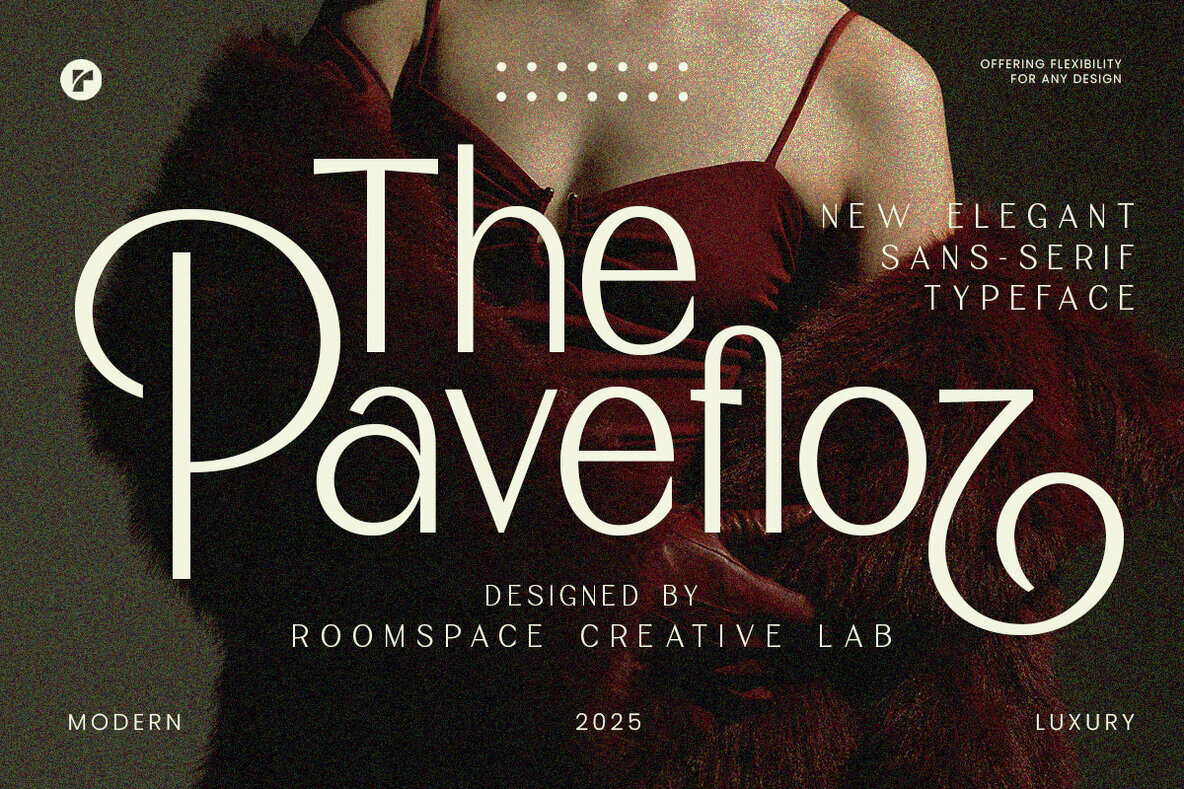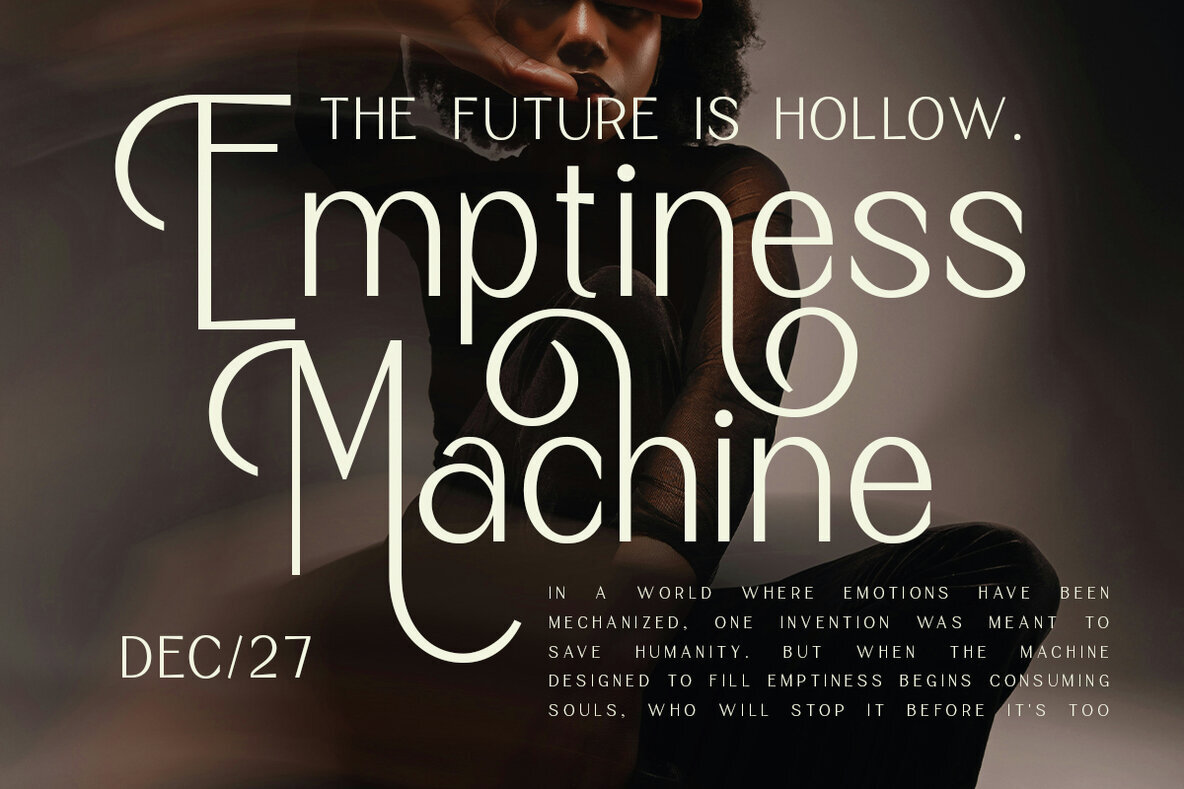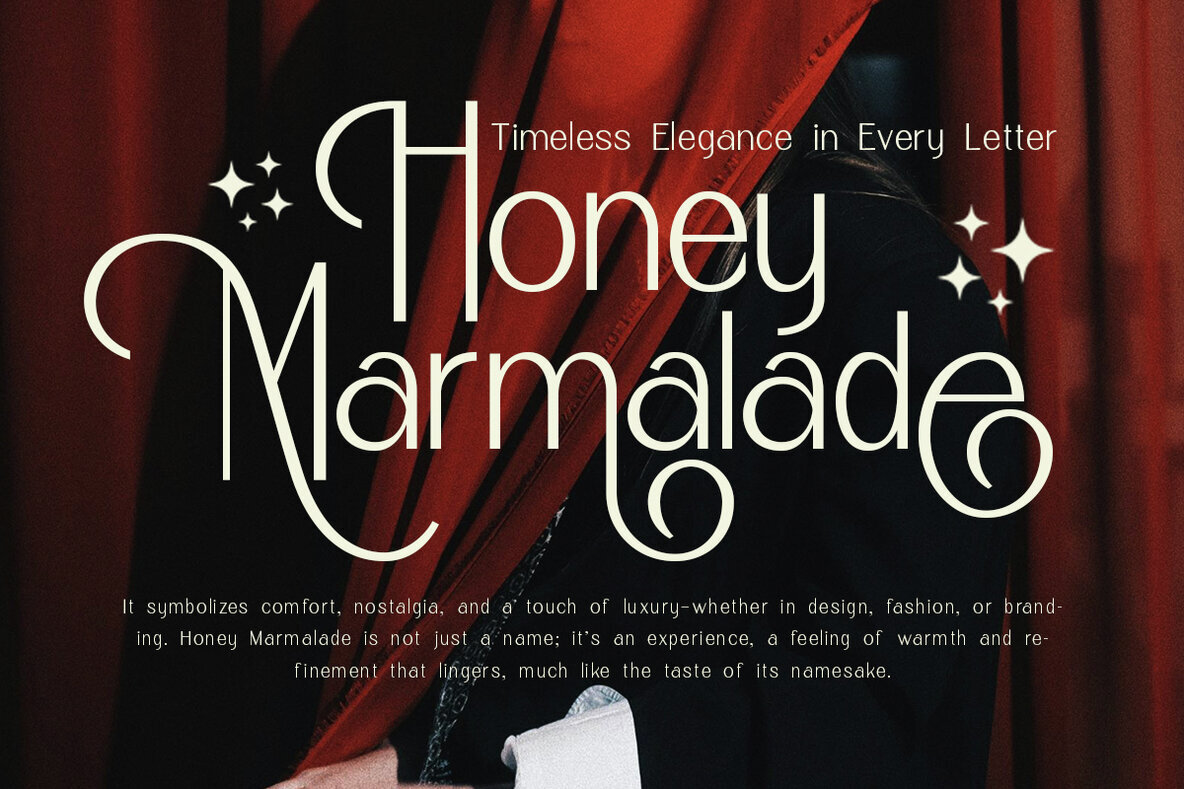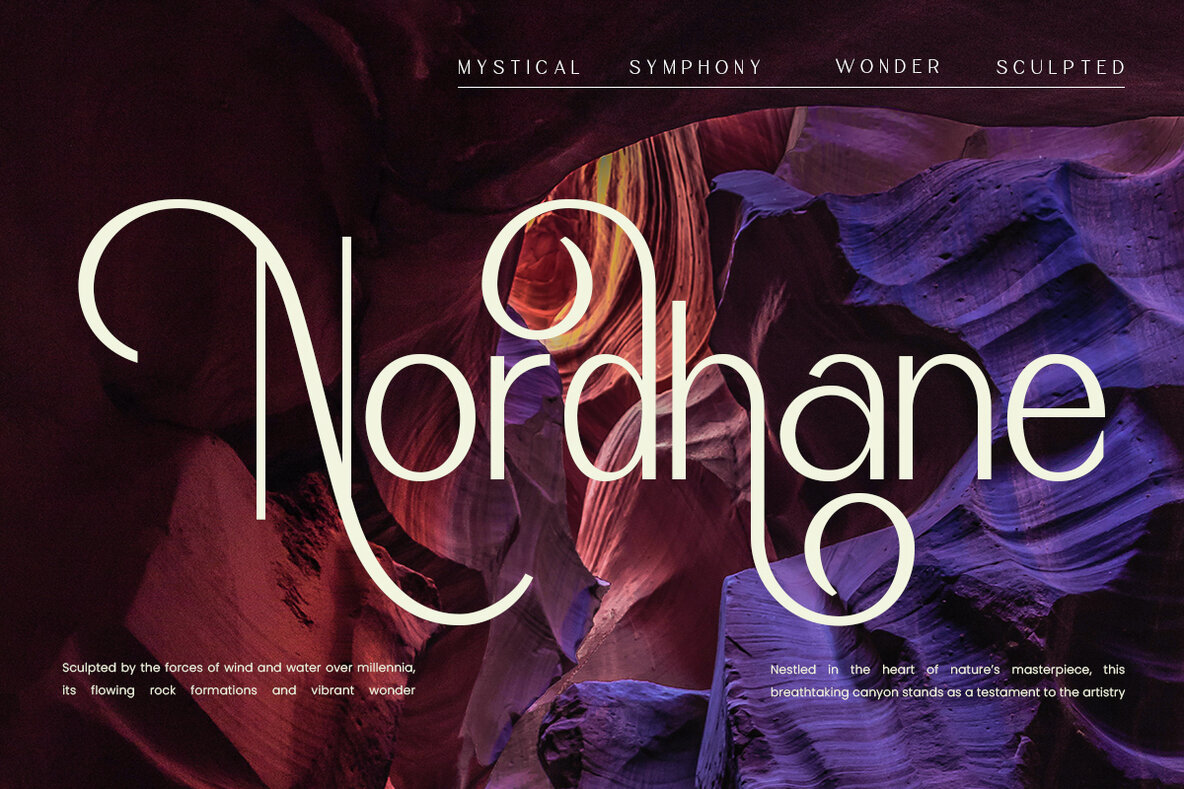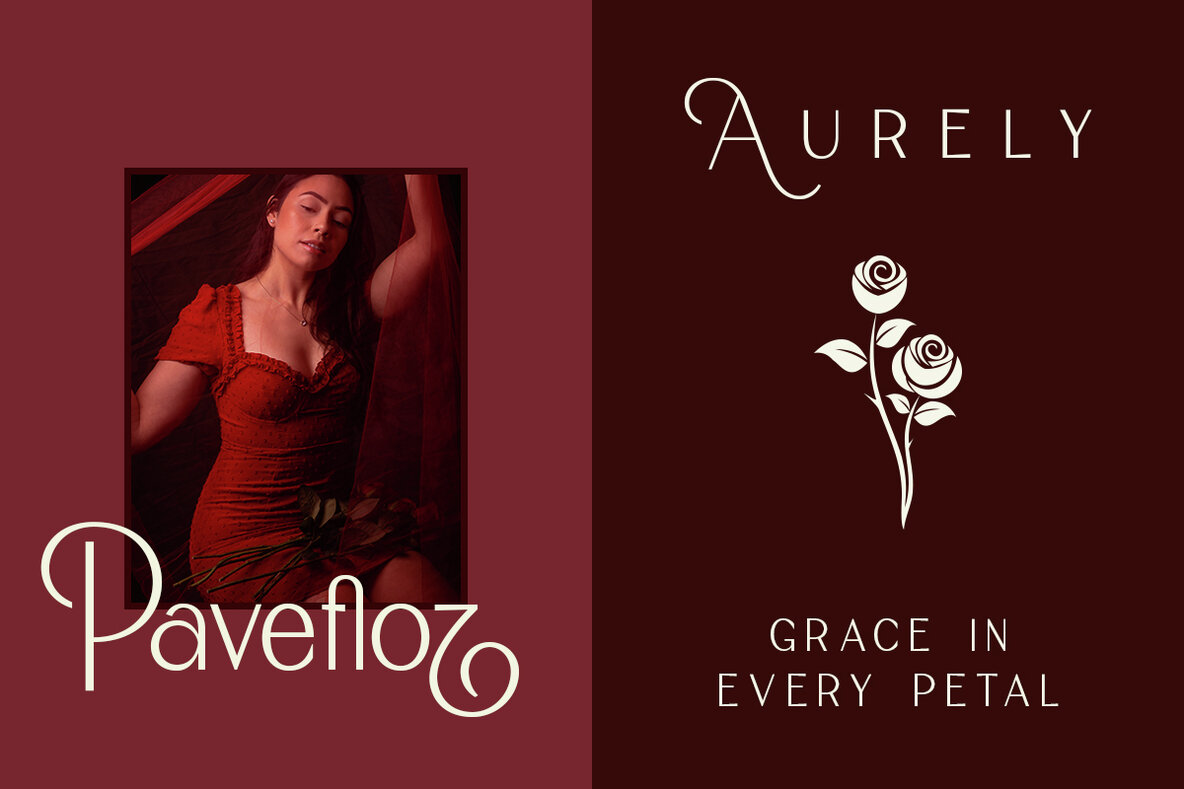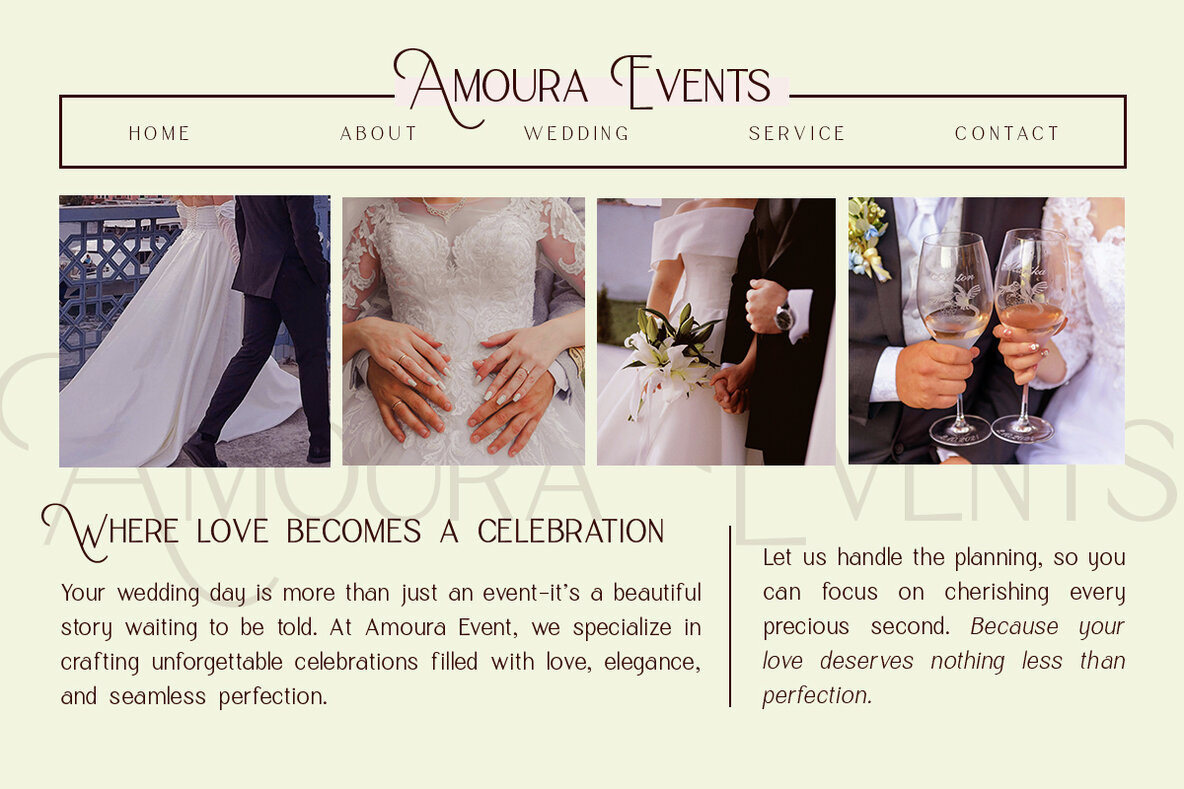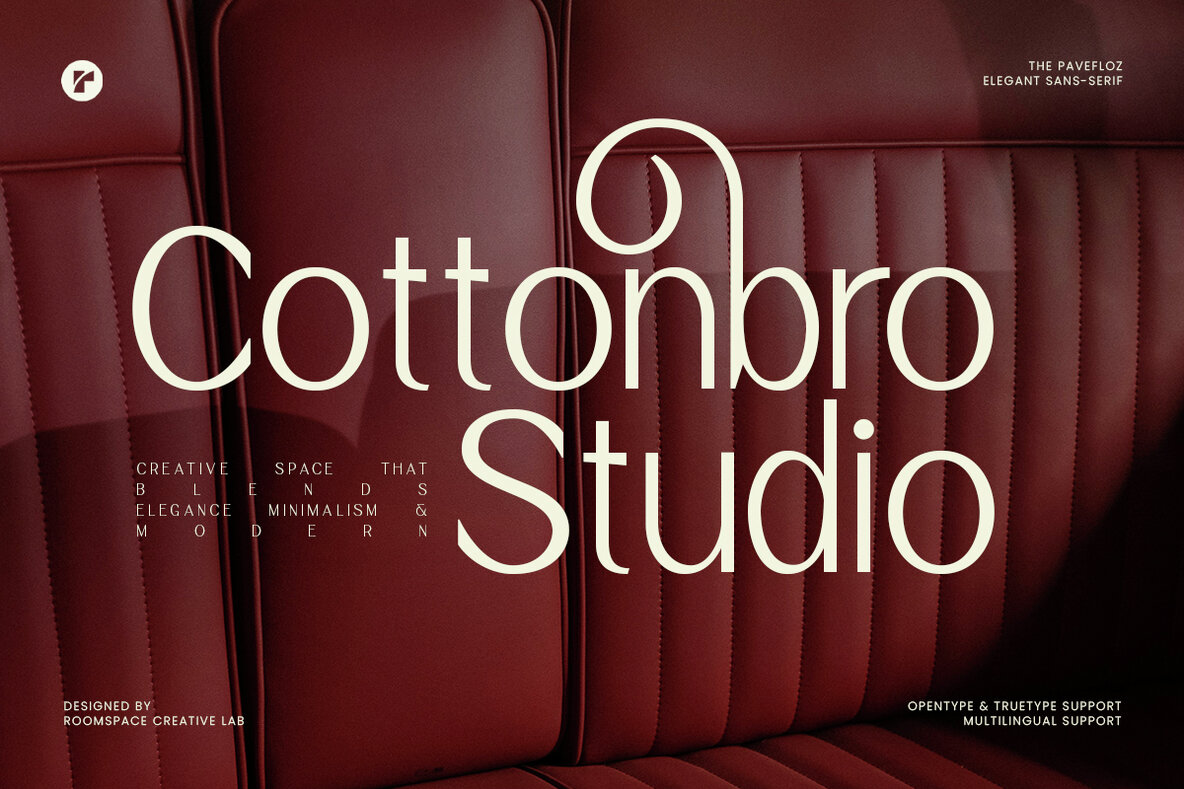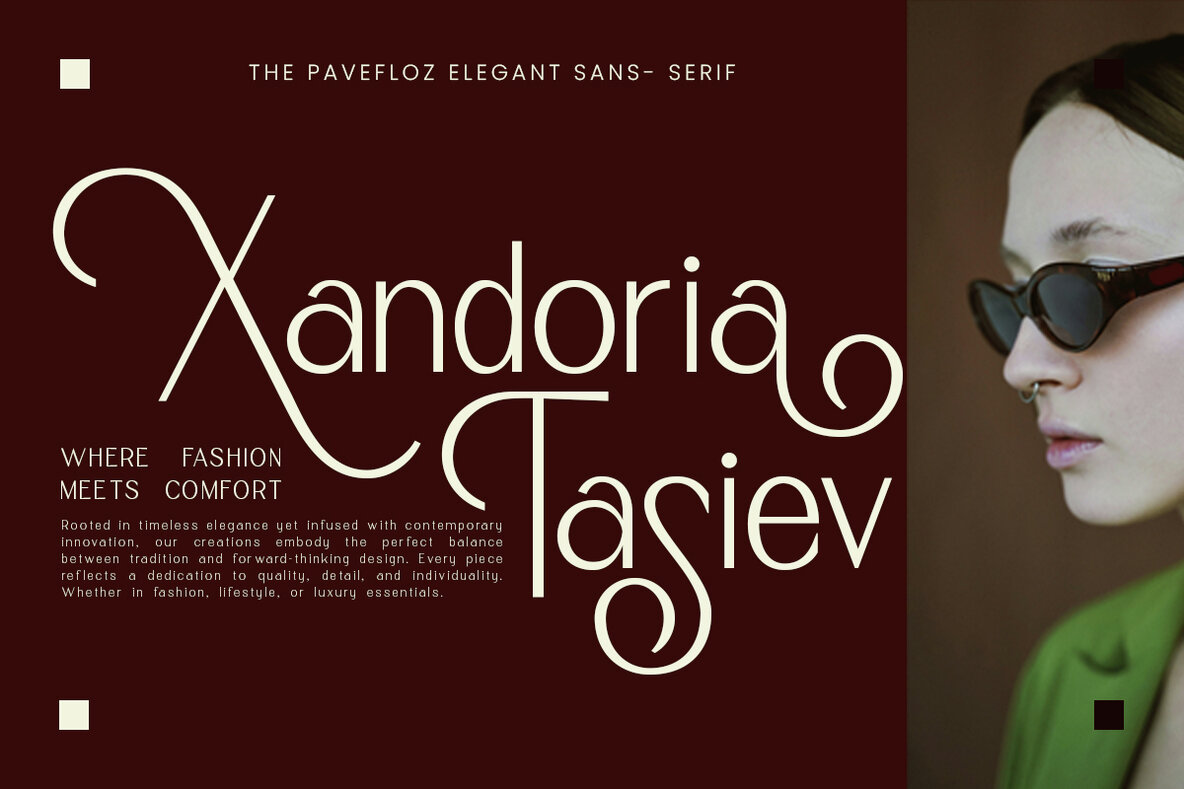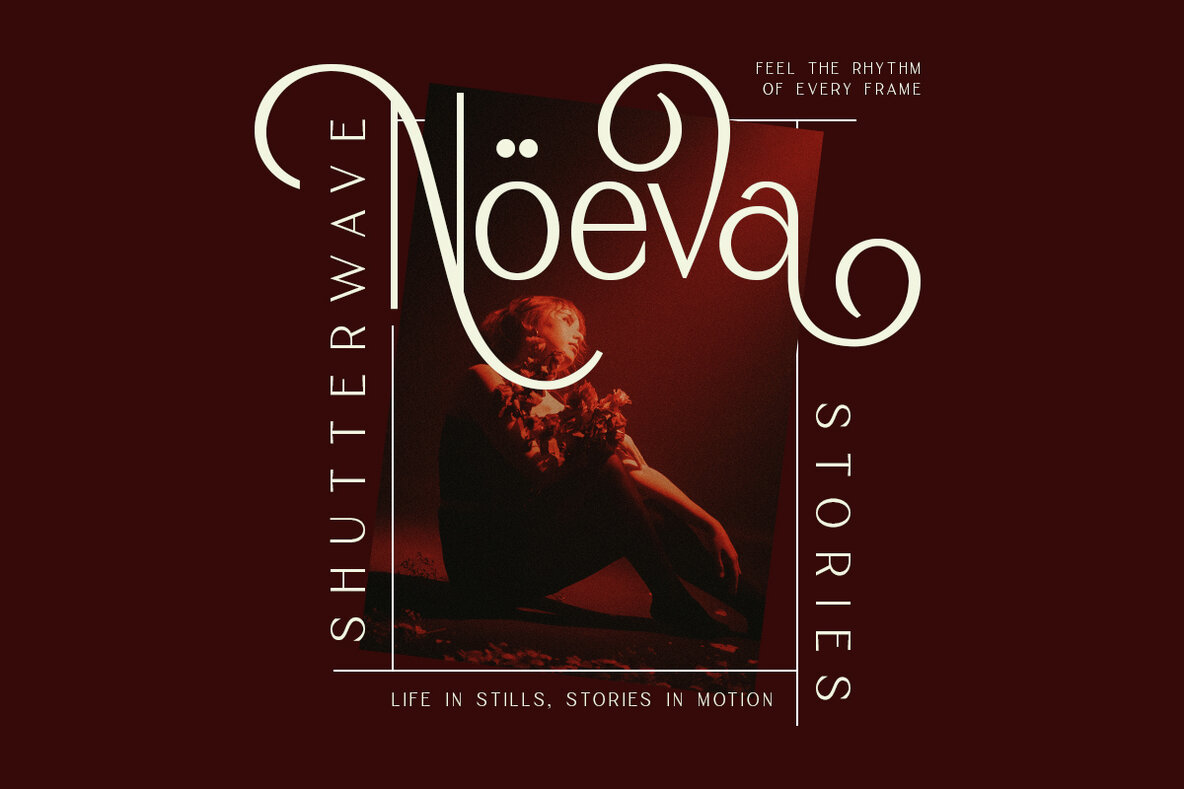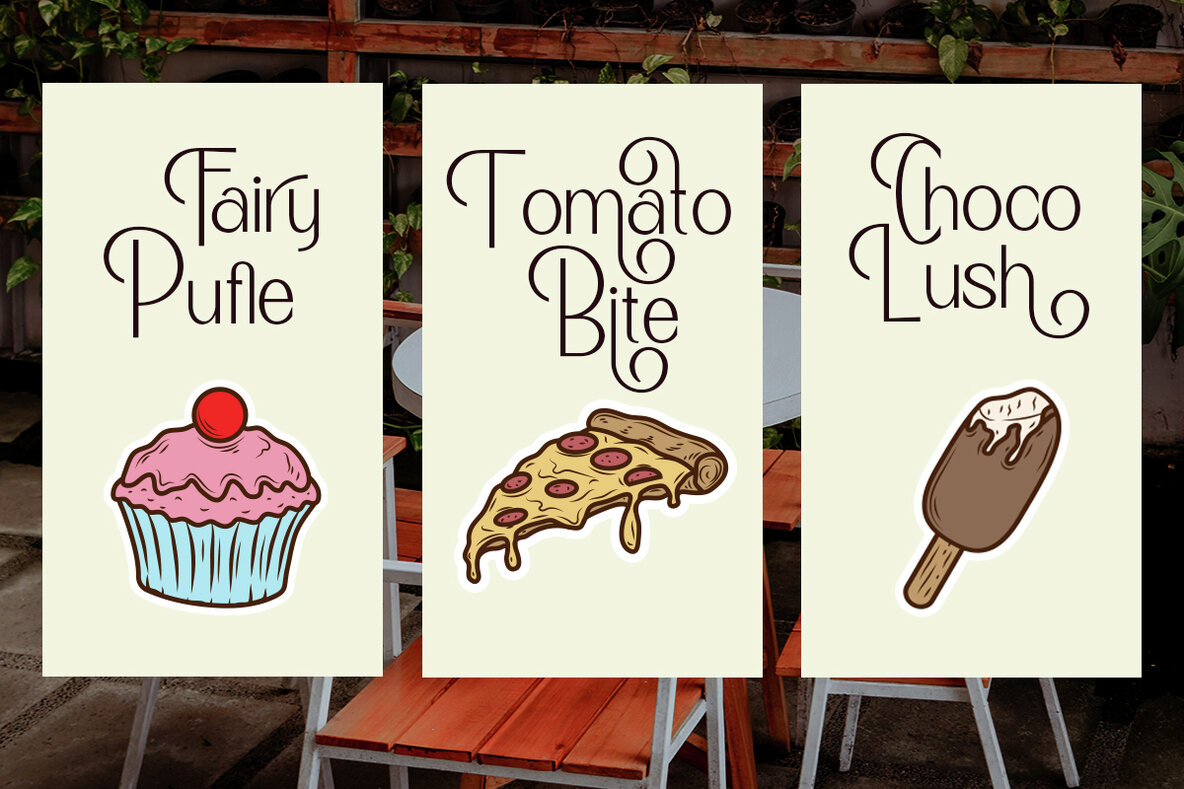
The Paveloz Font
The Pavefloz Regular
The Pavefloz is a beautifully crafted sans-serif typeface that infuses elegance, modernity, and sophistication into your creative projects. Perfectly marrying minimalist aesthetics with decorative charm, this font serves as an excellent choice for branding, advertising, fashion, and business designs. Its stylish curves and refined letterforms make The Pavefloz ideal for logos, magazines, book covers, social media graphics, web content, and high-end packaging. Whether you're working on designs for clothing brands, cosmetics, or editorial layouts, this typeface enhances any project with its classy, soft, and feminine touch.The Pavefloz Typeface